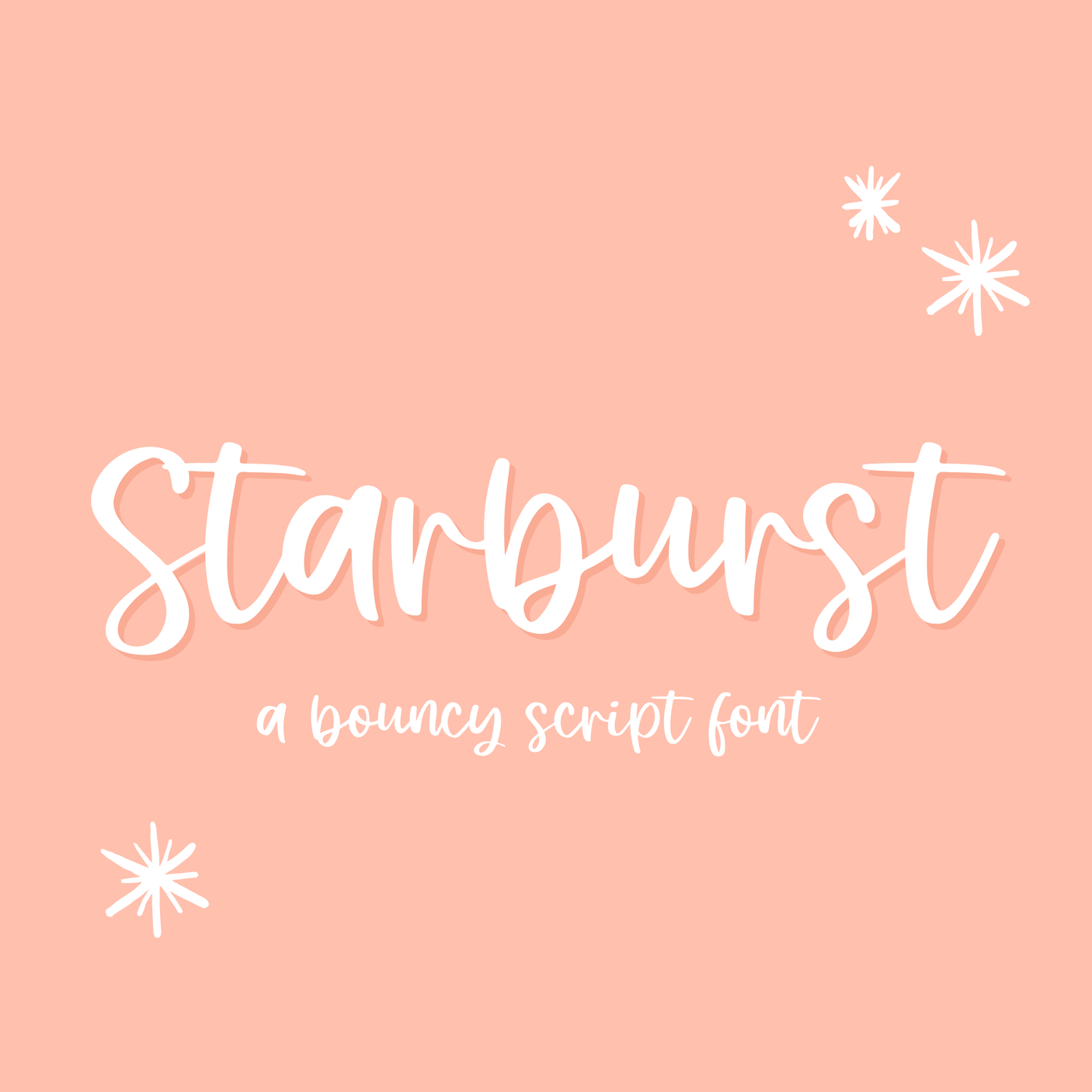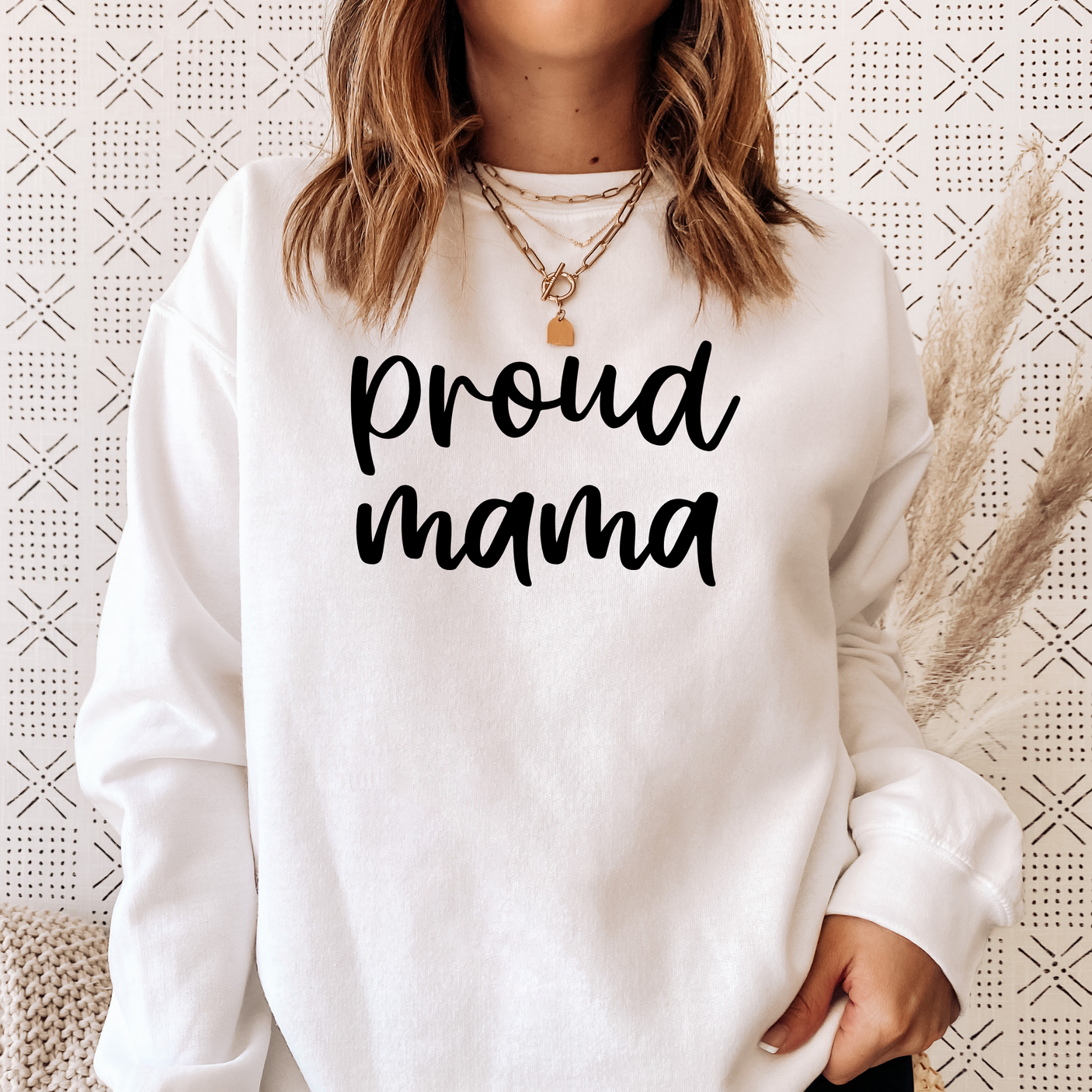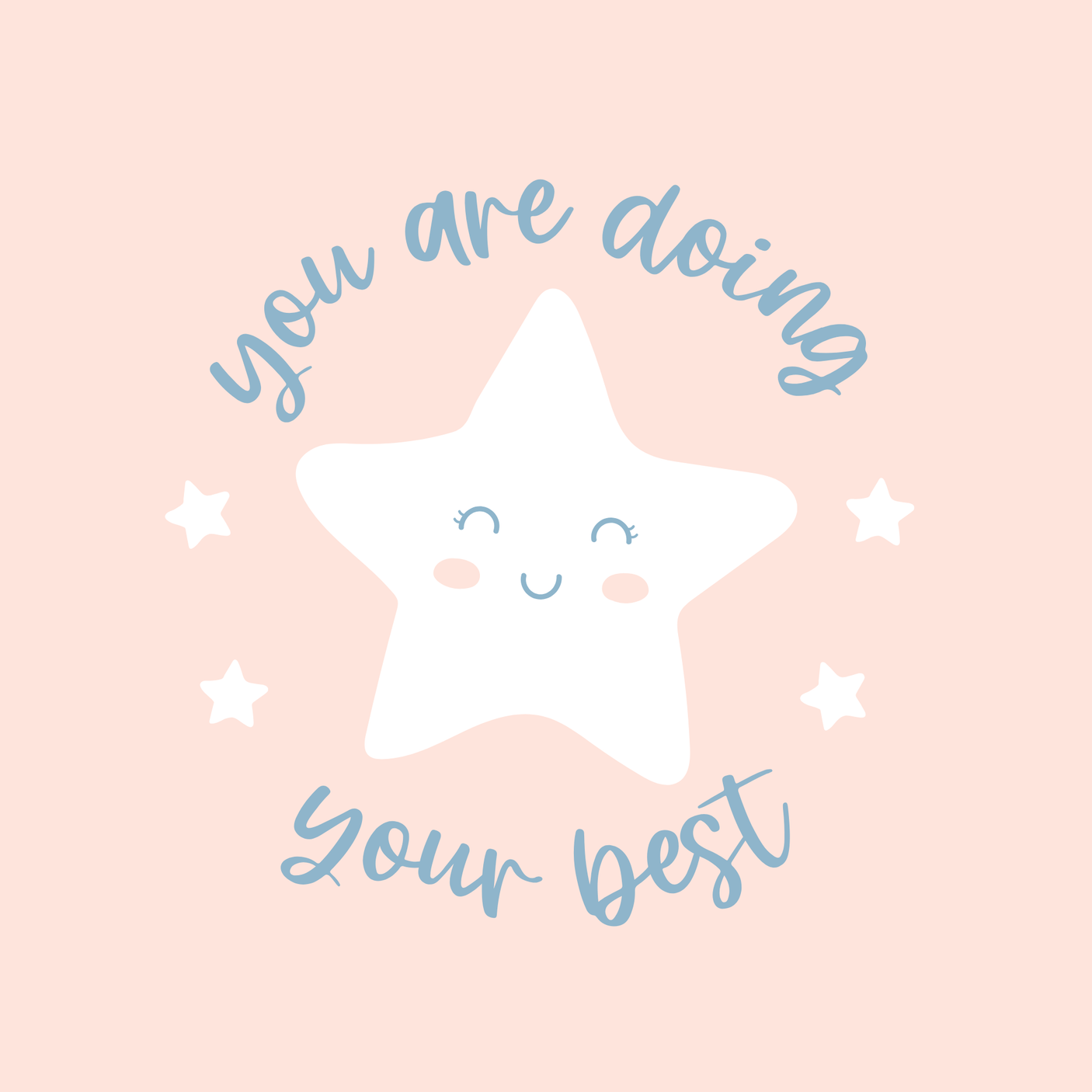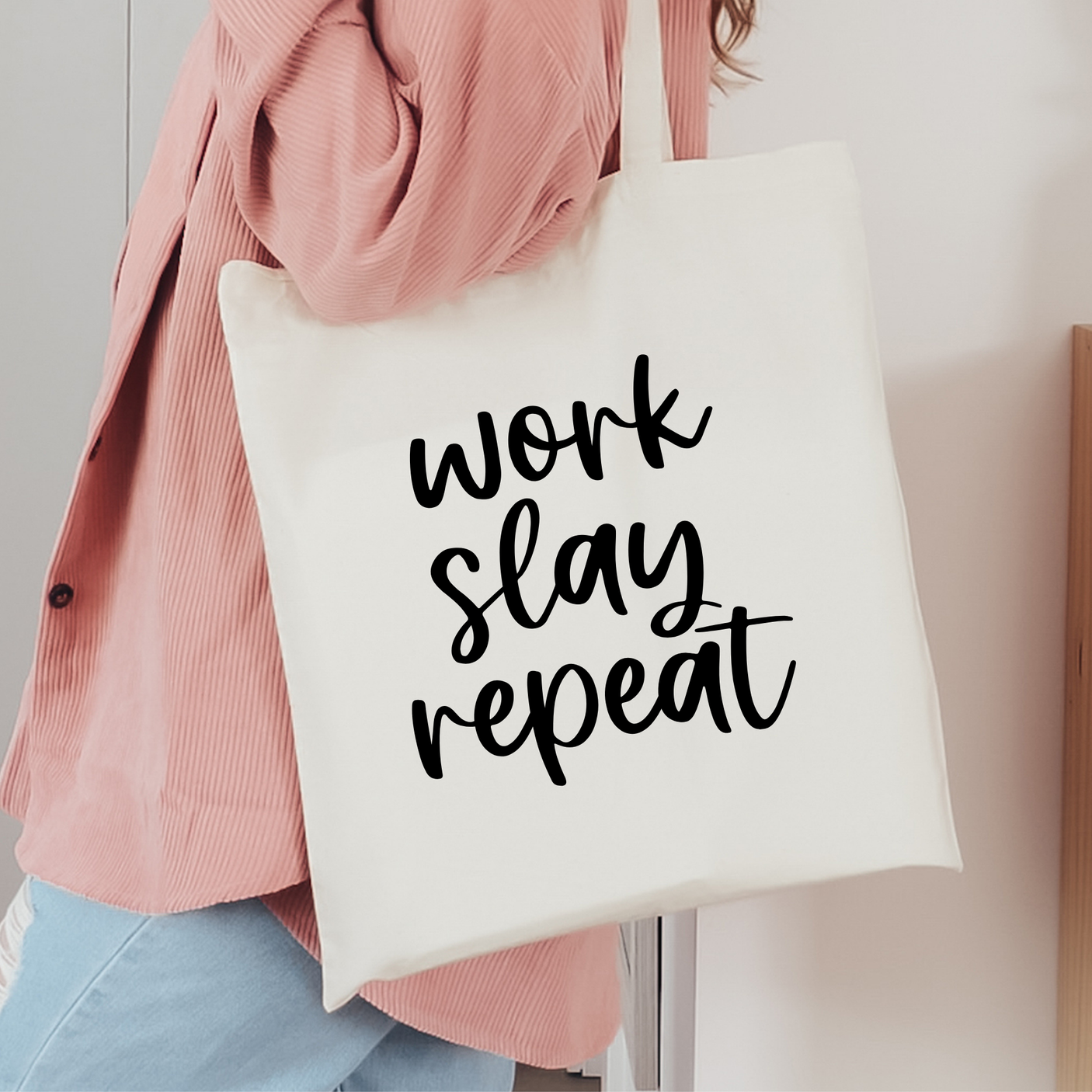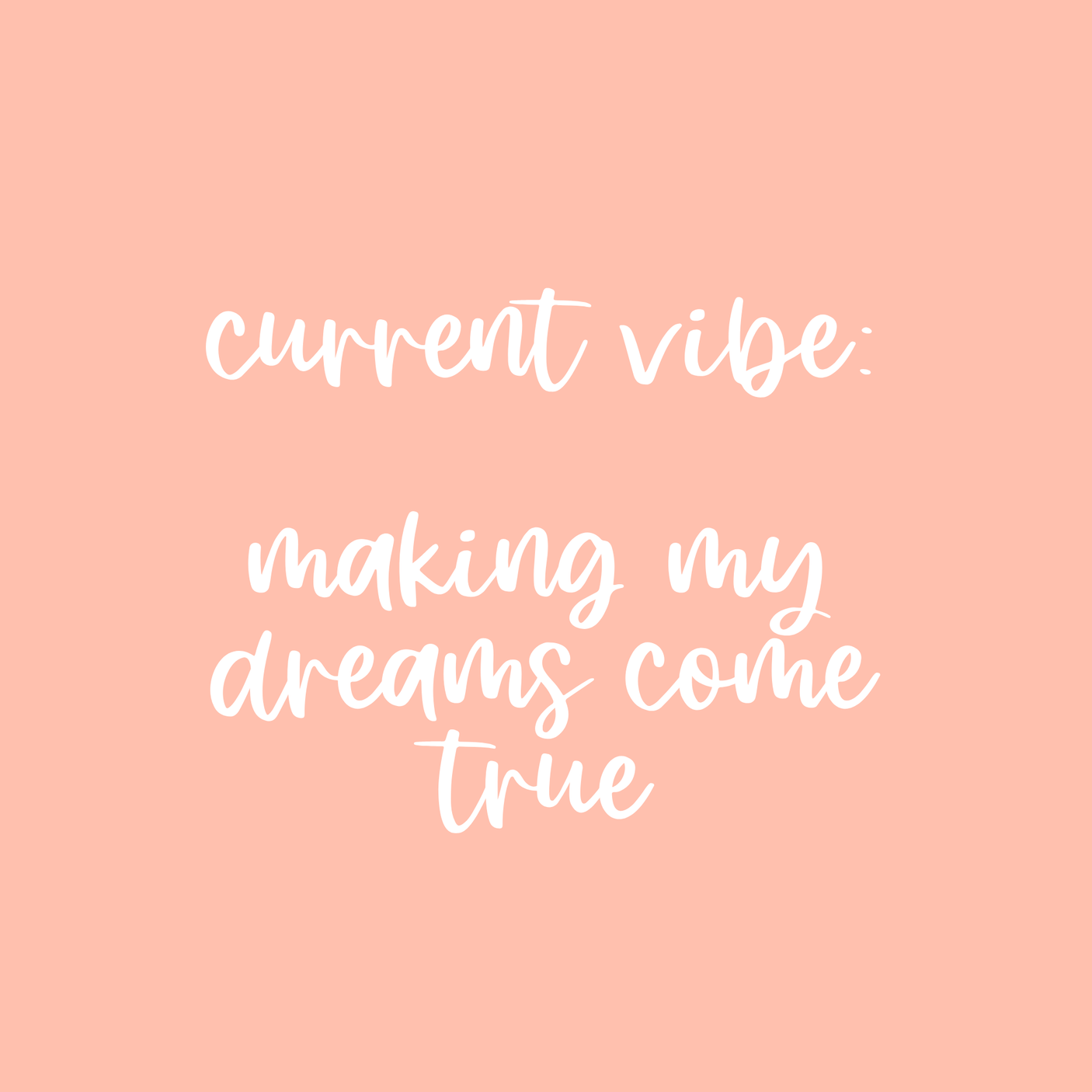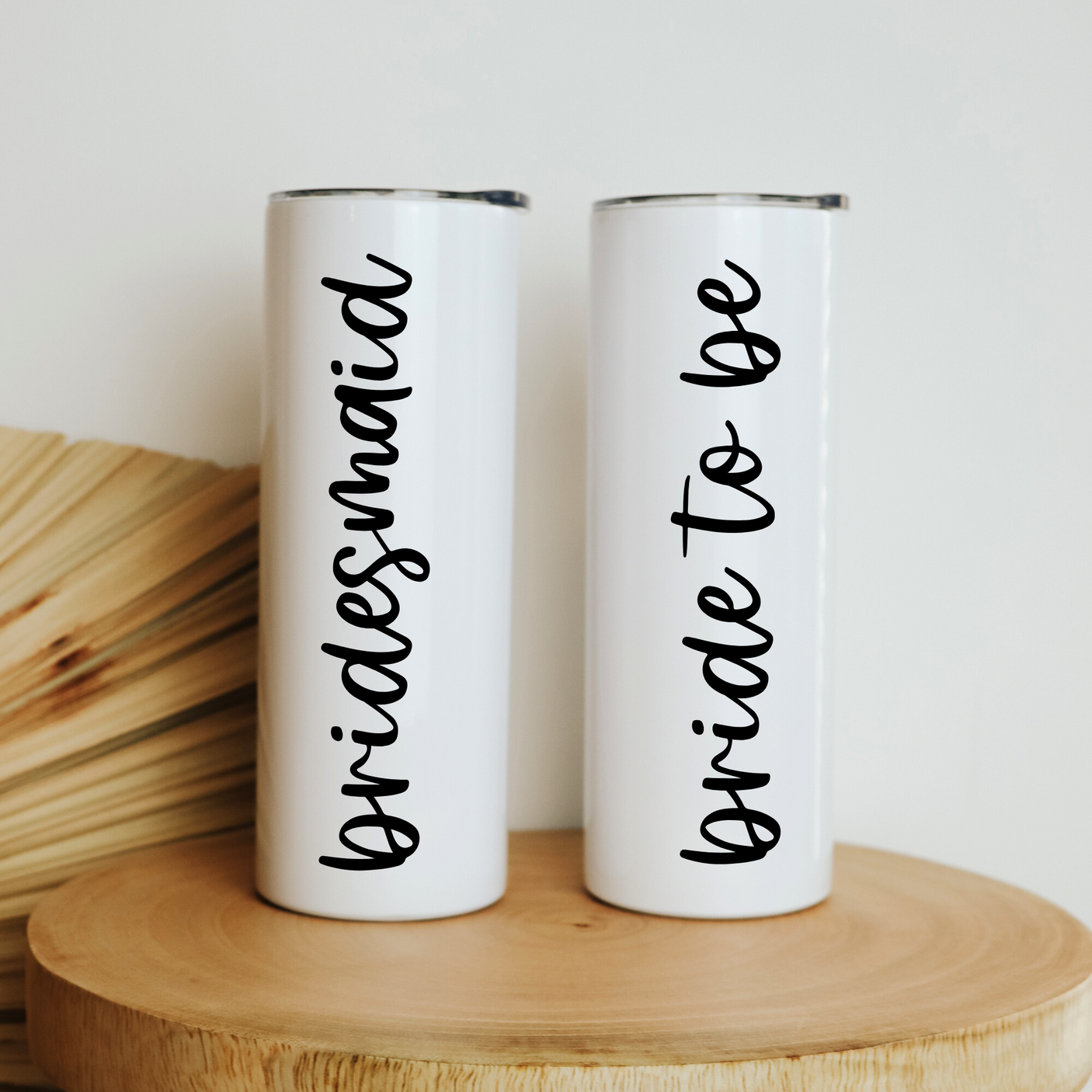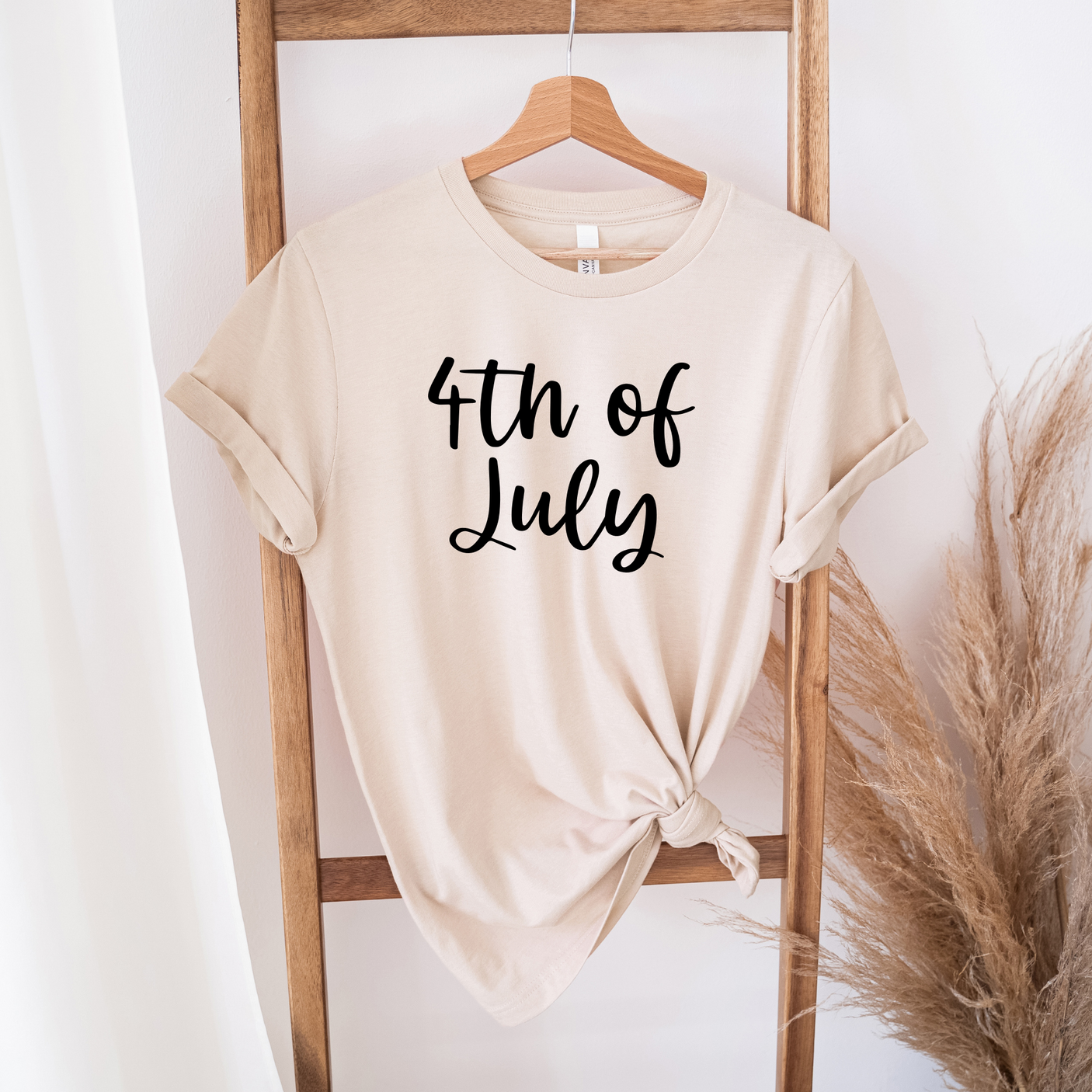
Starburst Font
Starburst is a cute handwritten script font to download to use as a font for Cricut, in Canva and more. Perfect for printables, craft, cricut, mug design, clothing design, stationery and more.